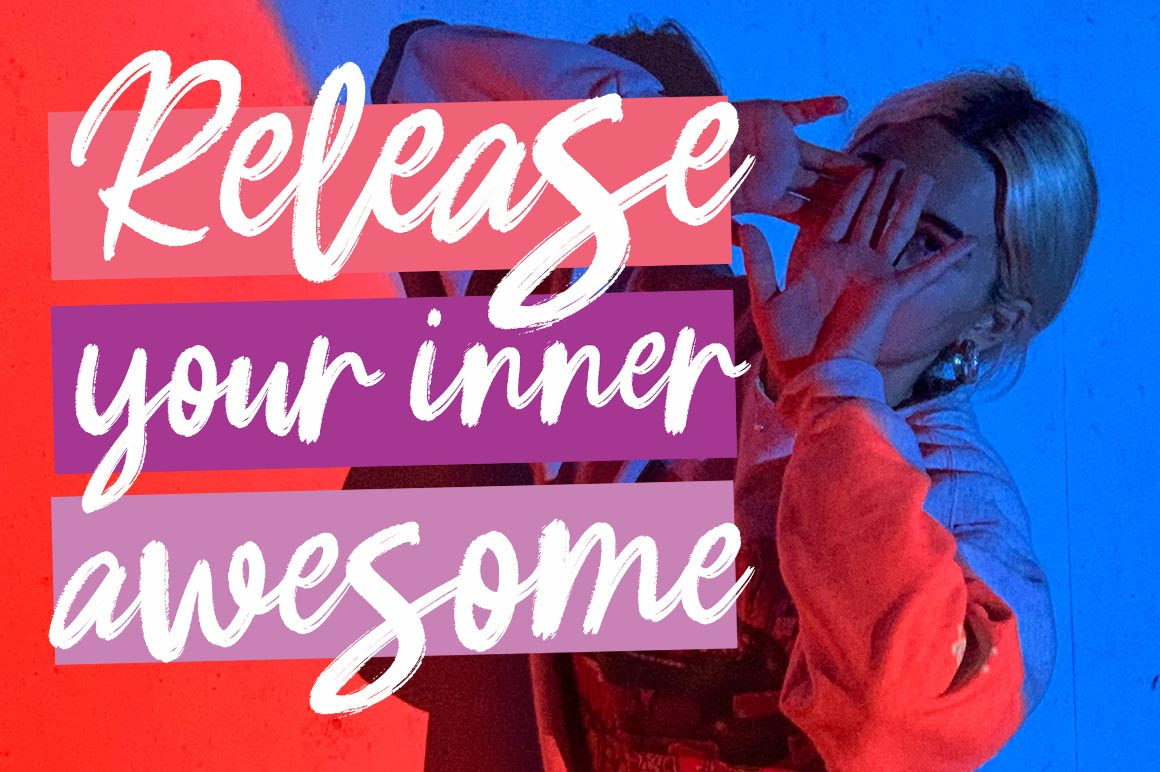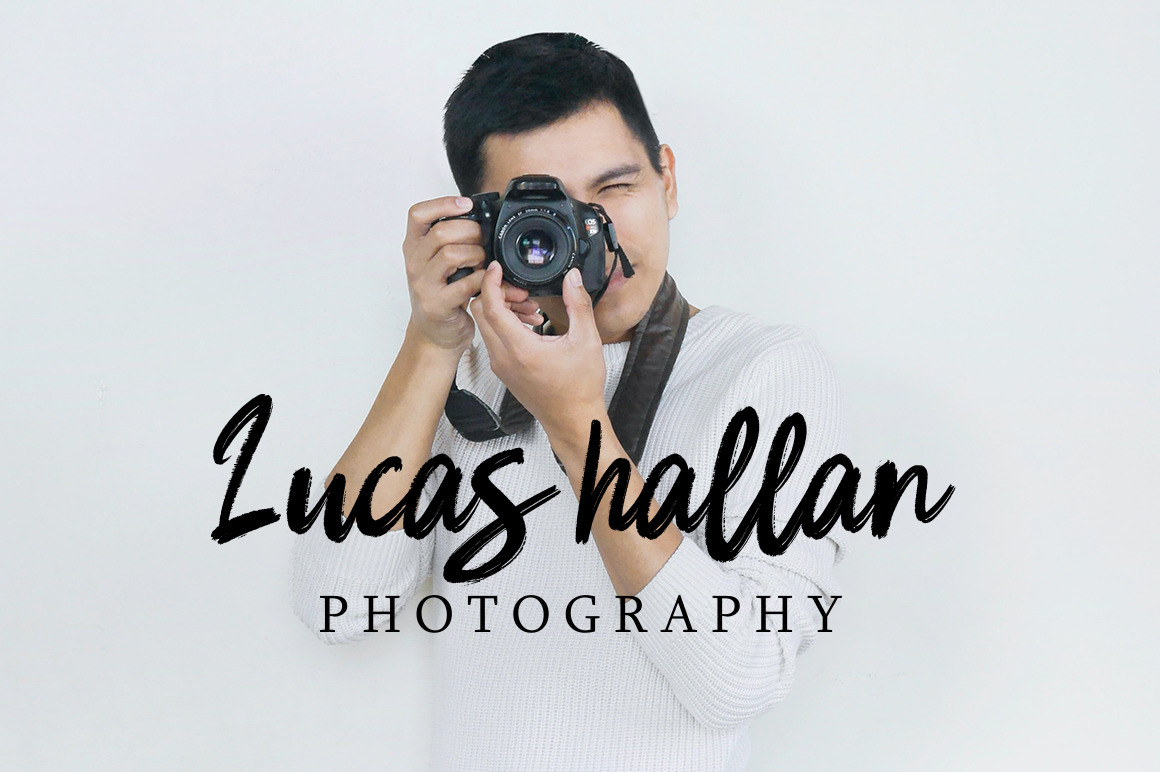
Sprimosk Font
Sprimosk Font is a hand brush font made with brushes and ink. This typeface is ideal for use in thick watercolor designs or handwriting styles, such as blog titles, posters, wedding elements, t-shirts, clothing, book covers, business cards, greeting cards, branding, merchandise etc.
Contains full set:
Uppercase
Lowercase
alternative
fastener
Punctuation
number
multilingual support.